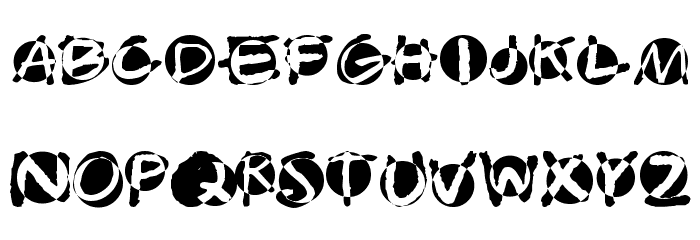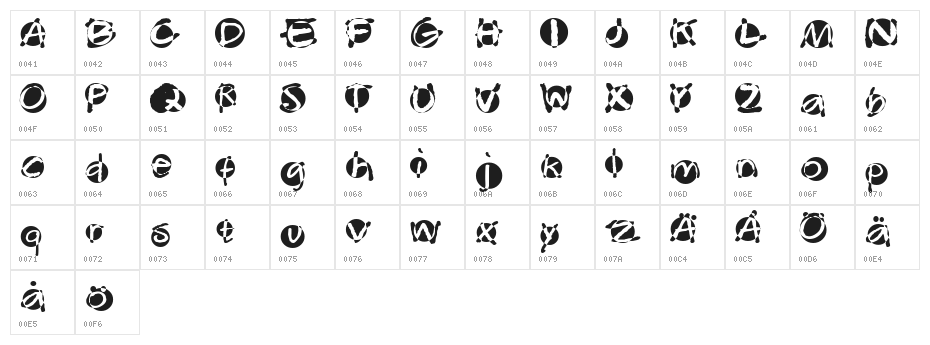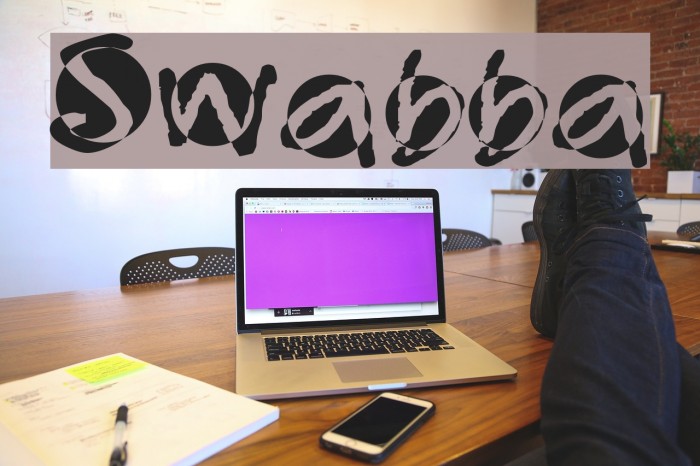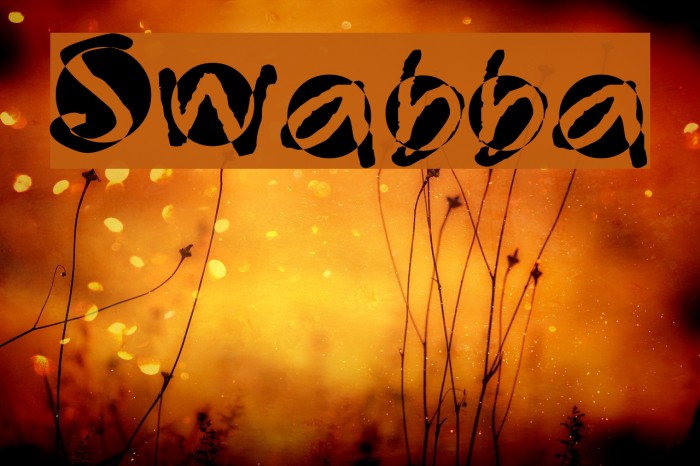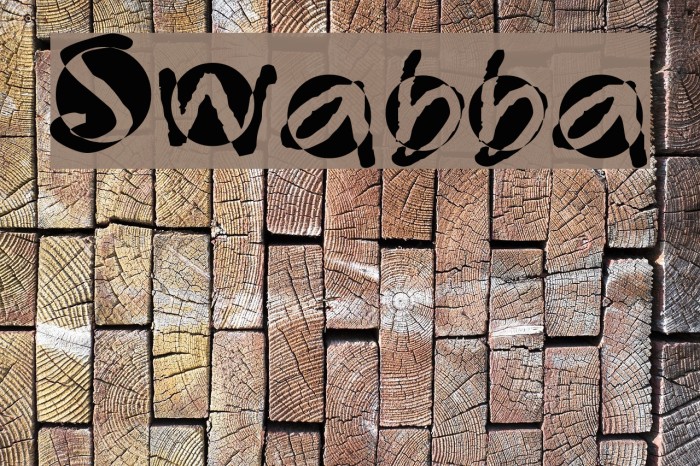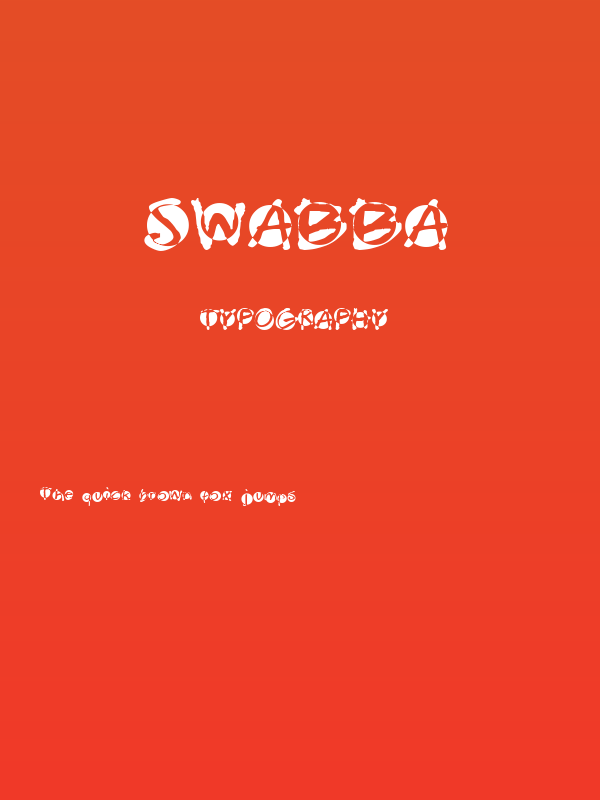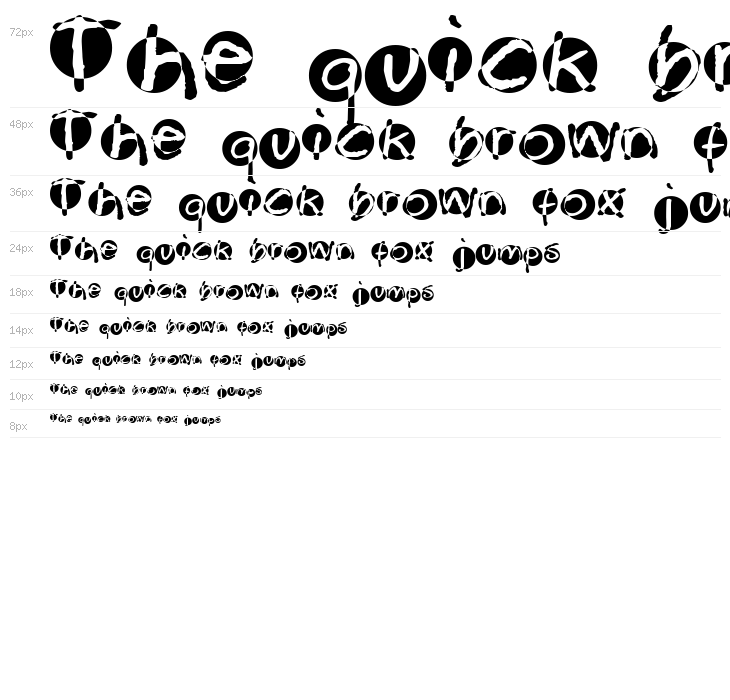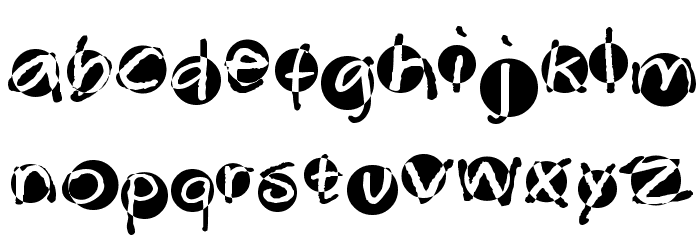
Swabba Font
Swabba Description
This font features a bold and artistic design with a unique splatter effect that gives it a dynamic and edgy appearance. Each character is encased in a circular form, with irregular strokes and splashes that create a sense of movement and energy. The letters are bold, with high contrast between the thick and thin areas, making them stand out prominently. The overall style is modern and unconventional, perfect for making a statement. The font's playful and chaotic nature makes it ideal for creative projects that require a distinctive and eye-catching typeface.
Overall StyleModern, Artistic
Proposed ProjectsIdeal for album covers, event posters, street art designs, and creative branding projects.